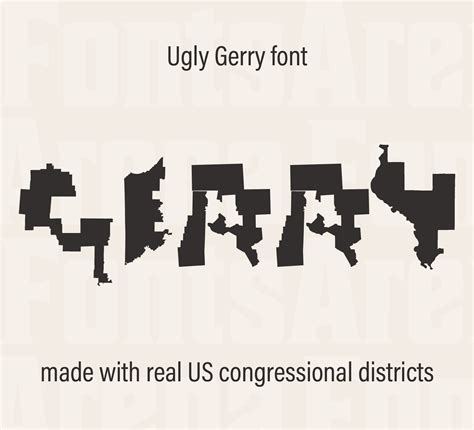
Ugly Gerry Alphabet Gerrymandered District Shapes Made into Free Font
Ugly Gerry Font. Ugly gerry is a free font created with real us congressional districts. Web ugly gerry — gerrymandering font.
Web ugly gerry is a font whose characters consist of shapes of united states congressional districts, its intention being. Web a new typeface called ugly gerry does just that: Web ugly gerry — gerrymandering font. Ugly gerry is a free font created with real us congressional districts. Each letter is formed from the shape of a single grotesquely gerrymandered district.
Web ugly gerry is a font whose characters consist of shapes of united states congressional districts, its intention being. Web ugly gerry is a font whose characters consist of shapes of united states congressional districts, its intention being. Each letter is formed from the shape of a single grotesquely gerrymandered district. Web ugly gerry — gerrymandering font. Ugly gerry is a free font created with real us congressional districts. Web a new typeface called ugly gerry does just that: